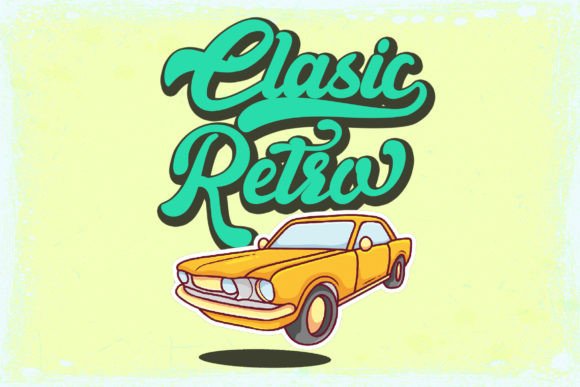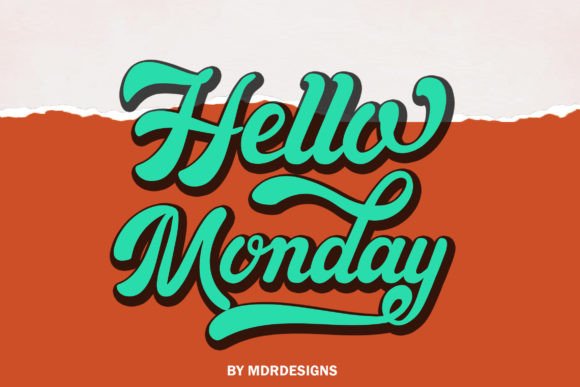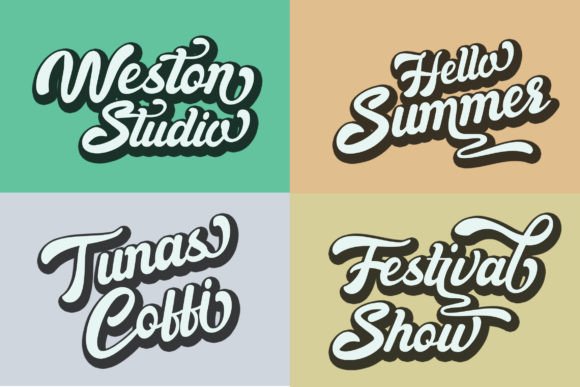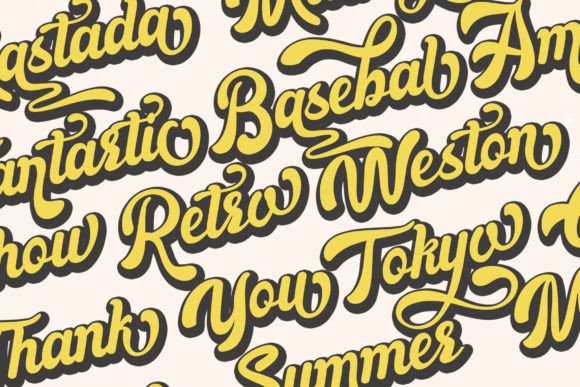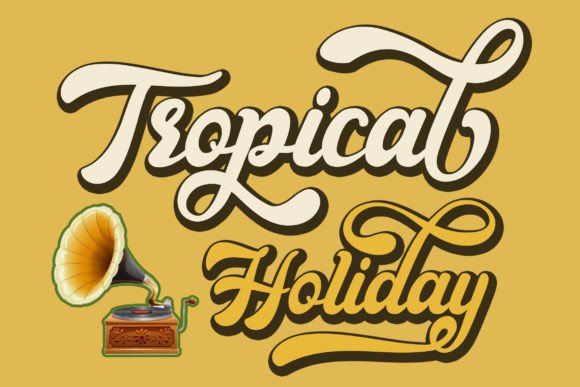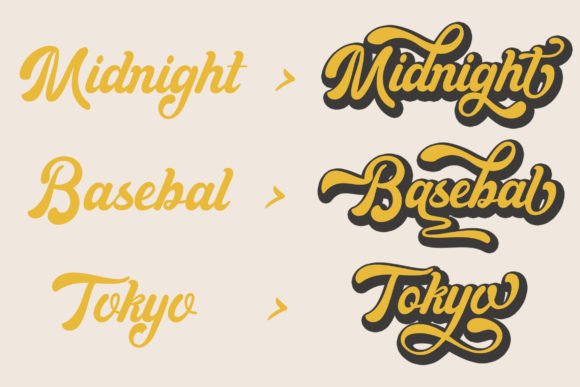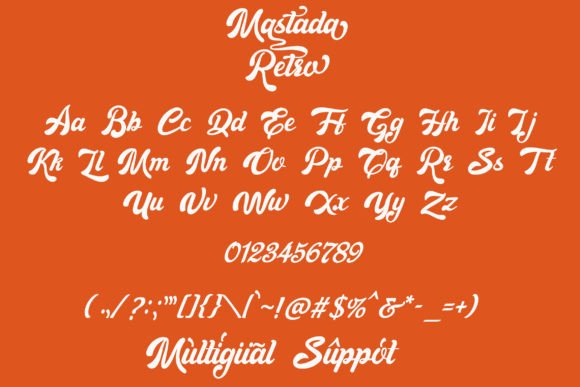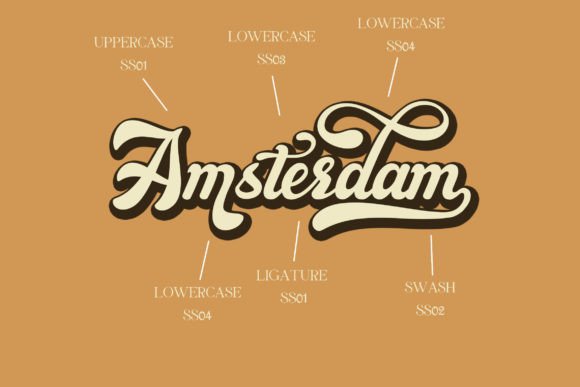
Introducing, Mastada Retro, a beautiful and elegant script with a new feel by swash. This font is very suitable for application, especially on logos, and various other formal forms such as invitations, labels, logos, magazines, books, greeting / wedding cards, packaging, fashion, make up, tools write, novel, label or any kind. advertising purposes.
Mastada Retro Font